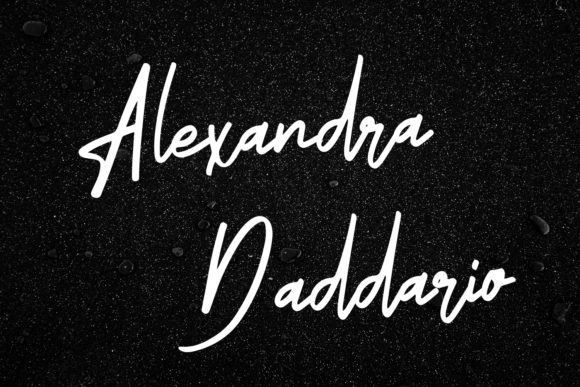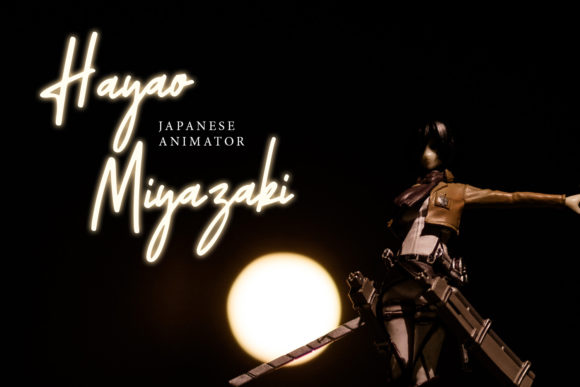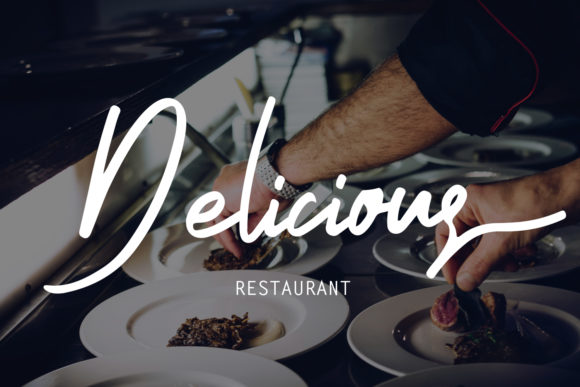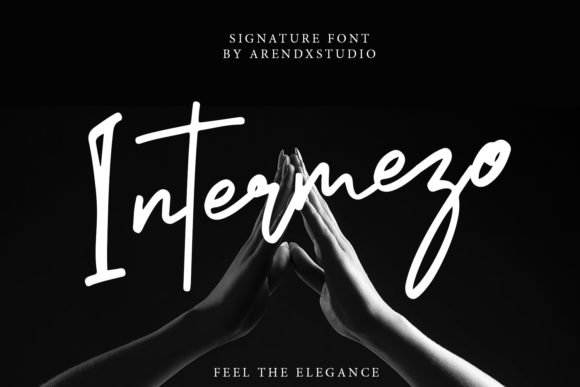
Introduction to Intermezo Font
Intermezo is a fun and cool script with a powerful vibe.
Get inspired by its unique charm .
Key Features of Intermezo Font
Why Choose Intermezo Font?
Intermezo Font offers exceptional quality and versatility, making it a valuable addition to your design toolkit. Whether you’re creating for personal projects or commercial use, Intermezo Font delivers professional results.